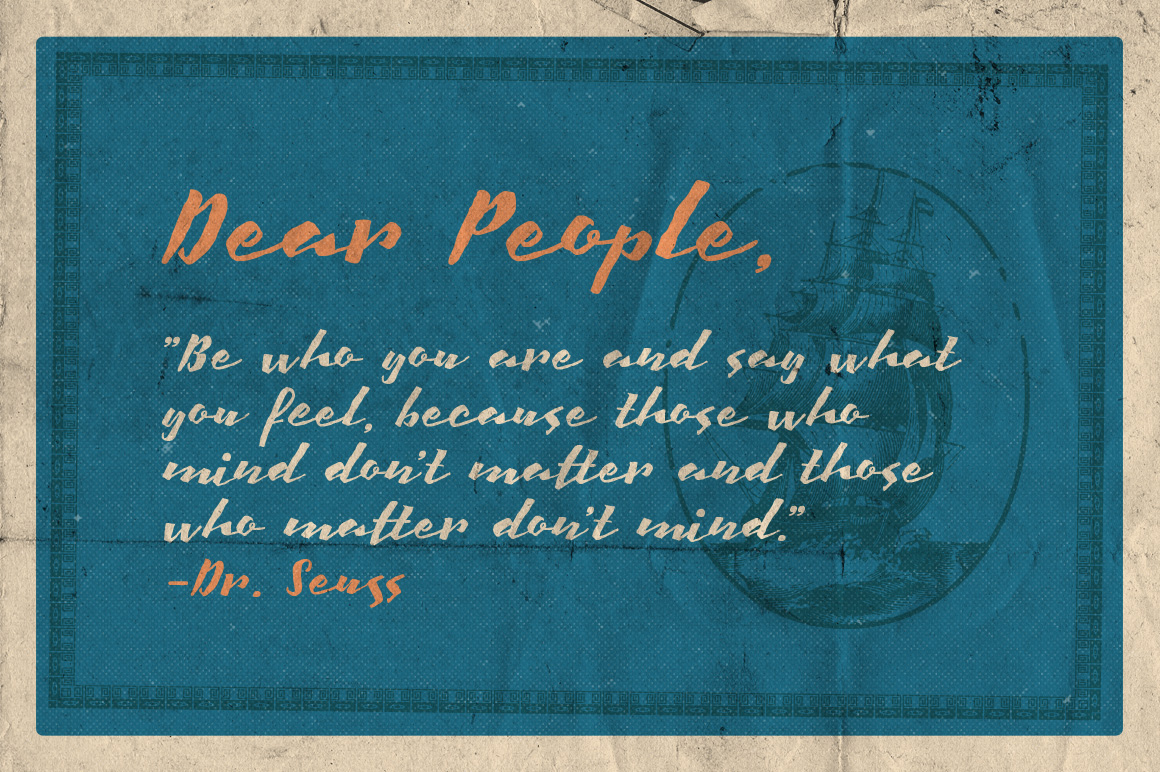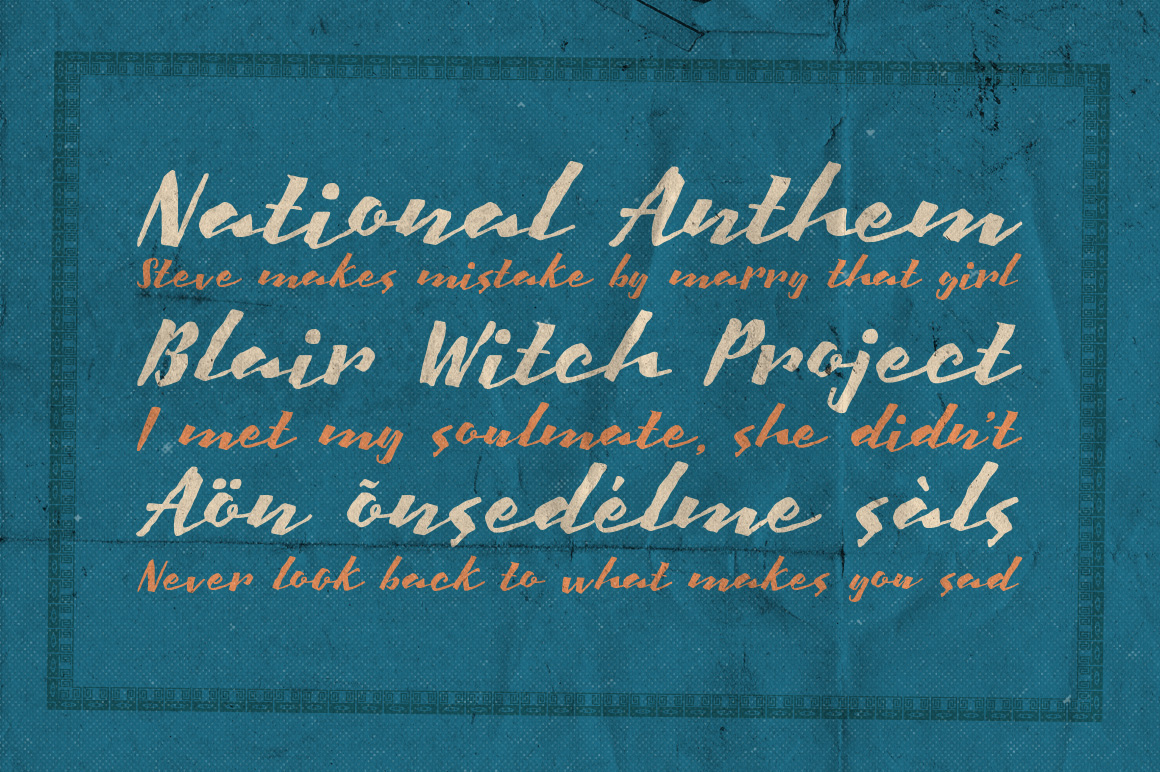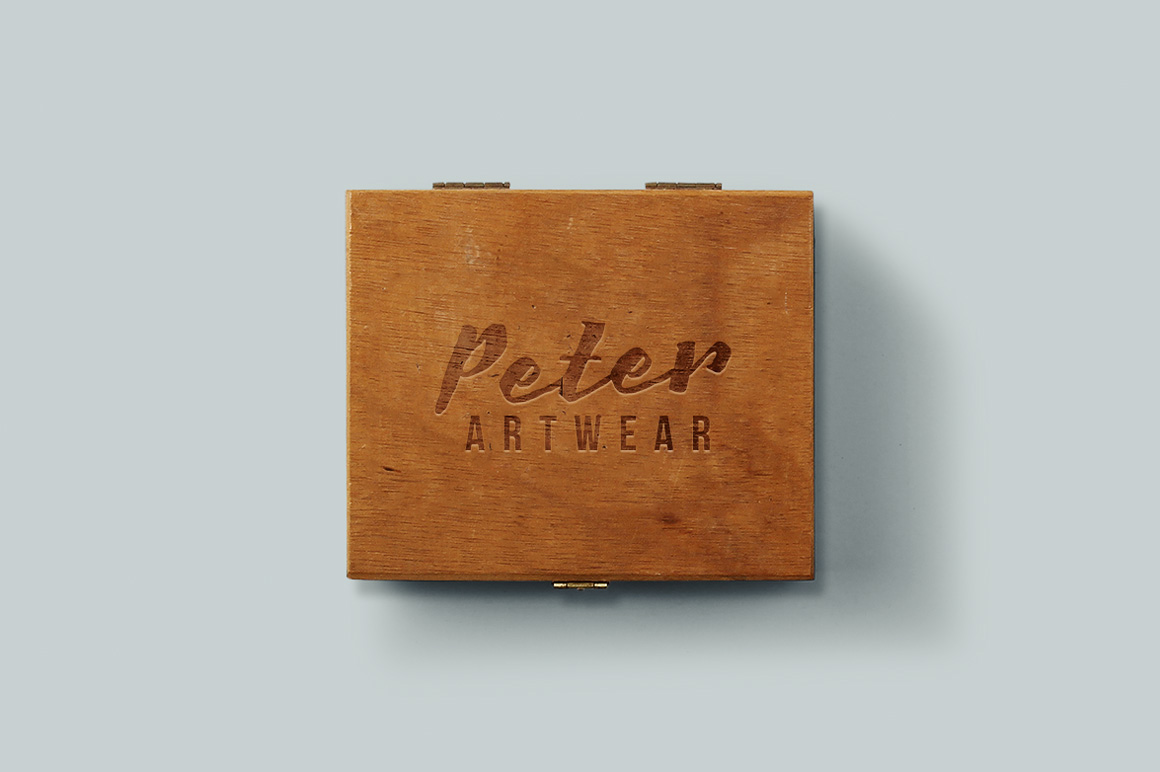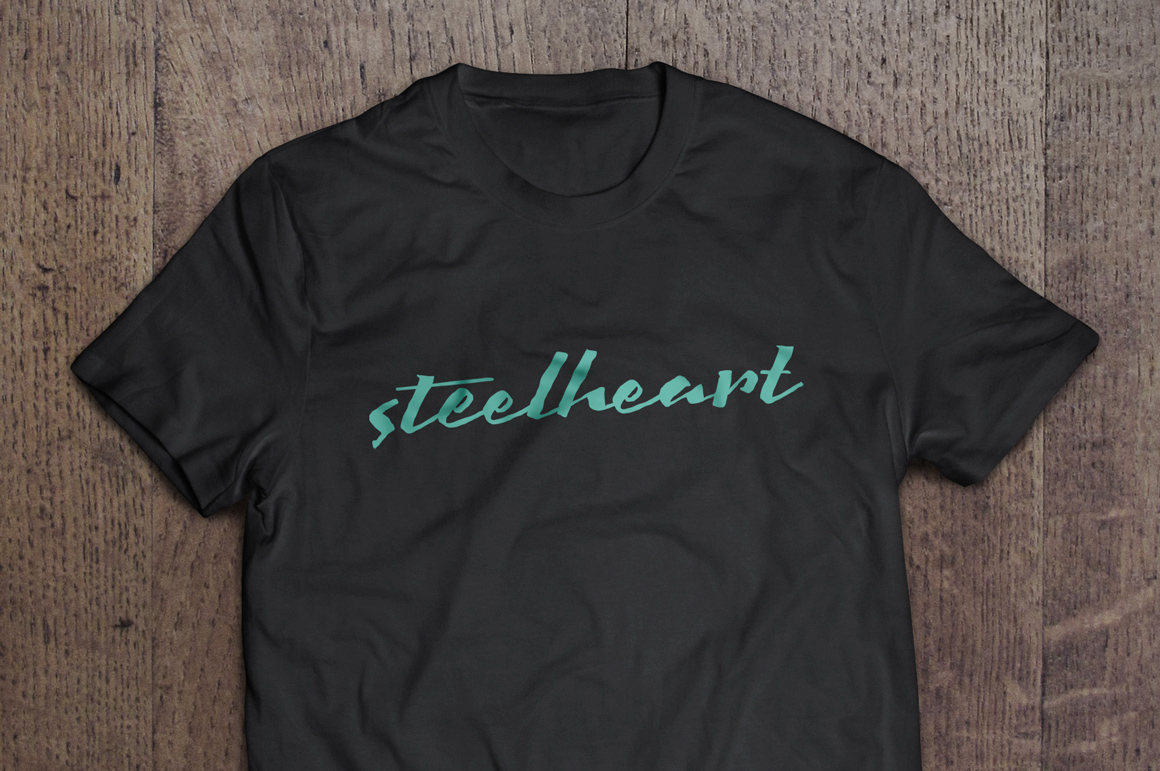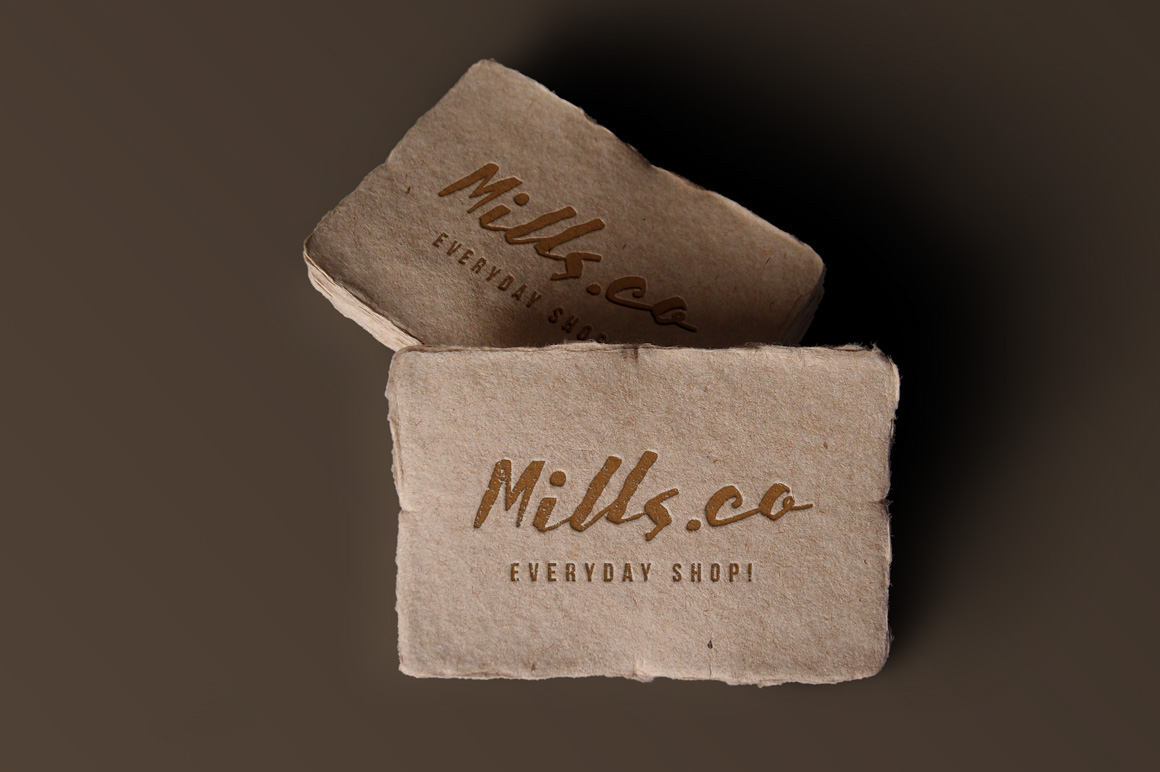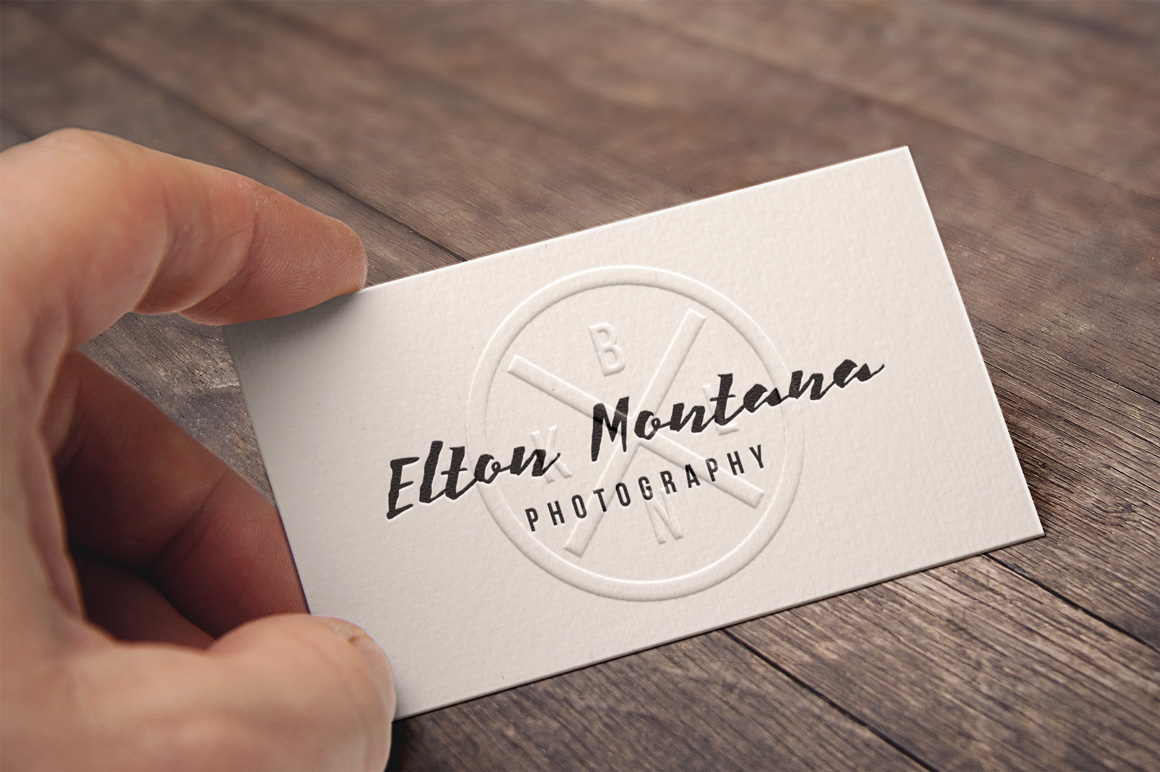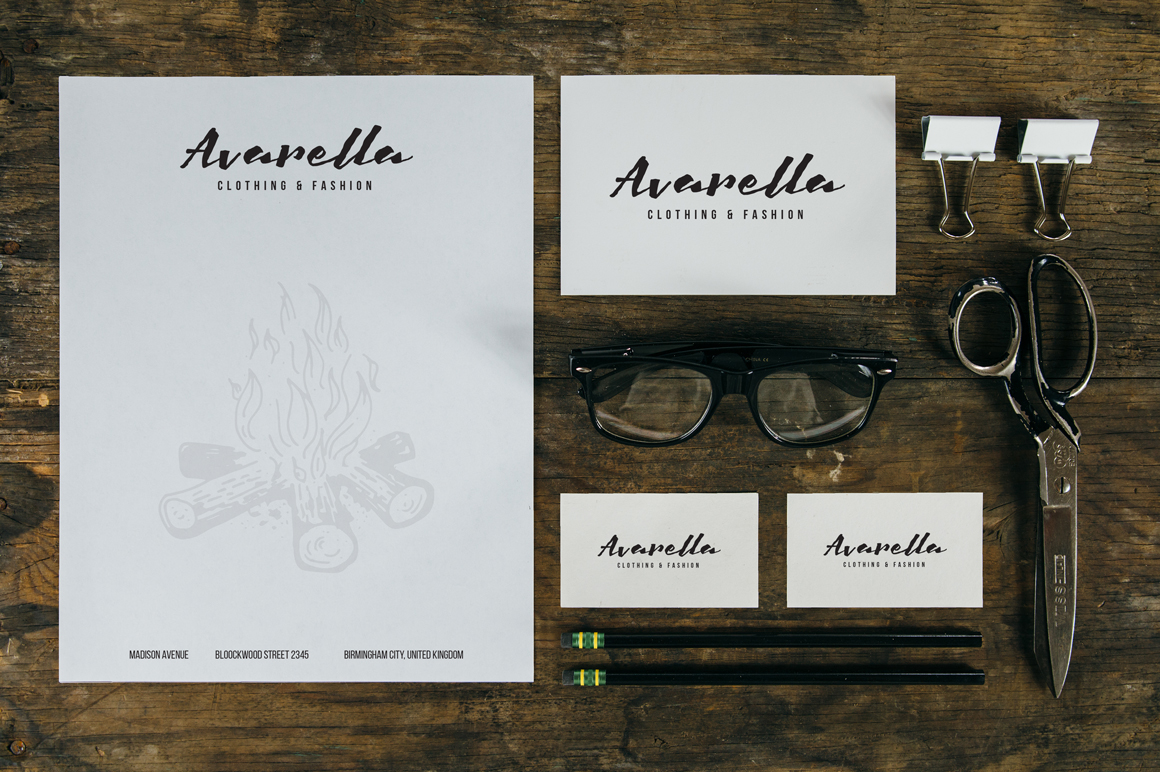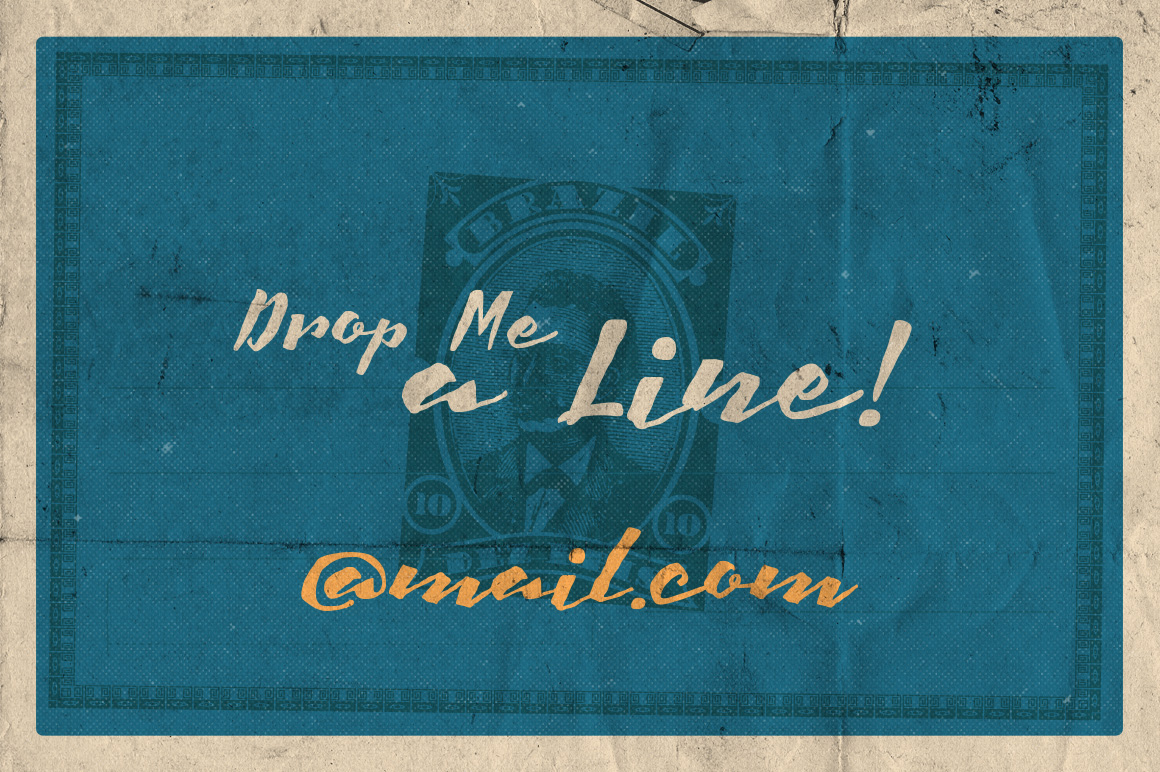
Harlott – Free Handwritten Retro Font
This retro style custom font is from Artimasa. Inspired by classic brush lettering, Harlott Script gives an impression of straight brush calligraphy and natural hand lettering. It can be used as a logo, part of branding, headline, any display purposes, t-shirt design, etc. Harlott Script also contains of diacritic symbols that support many european languages.